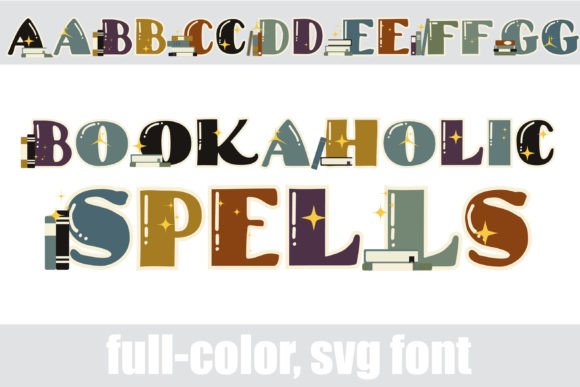
Journey into the enchanting world of Bookaholic Spells Font, a magical font crafted for those who cherish the art of storytelling and design. This full-color font is an exceptional creation by Illustration Ink, ready to cast a spell of creativity upon your projects.
Bookaholic Spells Font is more than just a font; it's a gateway to a realm of captivating tales. Its slab serif design, adorned with mystical spell books, evokes a sense of wonder and enchantment. With an alternate case and additional colors accessible through your system or Silhouette's glyph map, you'll have a palette of hues to paint your words with.
Embrace the limitless possibilities of Bookaholic Spells Font. Adorn your designs with vibrant text logos that leap off the page. Weave intricate illustrations that captivate the imagination. Let your creativity run wild as you explore the full range of colors and styles this font offers.
Unleash the power of SVG technology with Bookaholic Spells Font. Its vector-based nature ensures that your creations remain pristine and sharp, even when scaled to any size. Whether you're crafting digital masterpieces or tangible prints, this font will maintain its exceptional quality.
Bookaholic Spells Font is a versatile font that effortlessly adapts to a multitude of projects. From logos and branding to web design and print, this font is your trusty companion. Its versatility knows no bounds, making it an indispensable tool for any creative endeavor.
Dive into the world of Bookaholic Spells Font today and experience the magic of color, creativity, and storytelling. Let this font be your muse, guiding you towards captivating designs that leave a lasting impression. Immerse yourself in the realm of boundless creativity, where words dance with hues and stories unfold with every stroke.